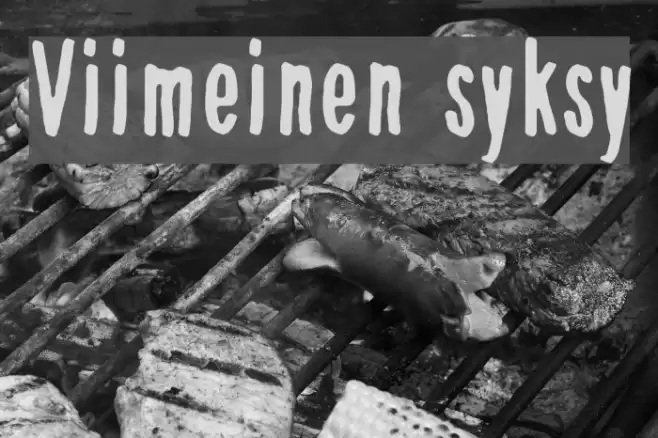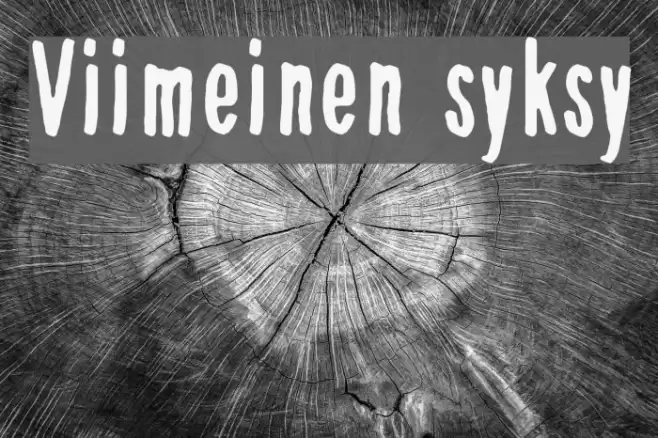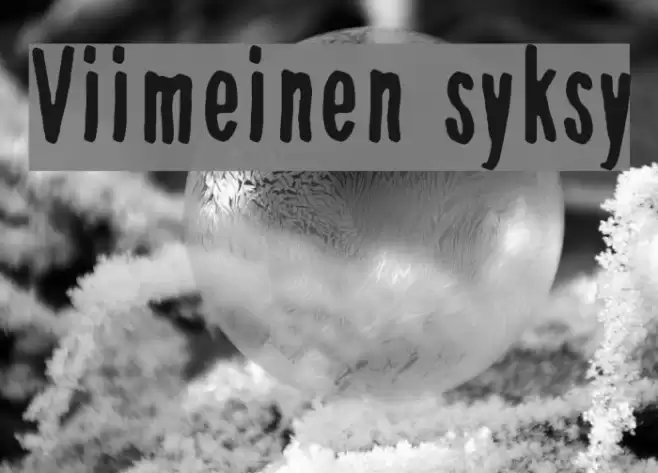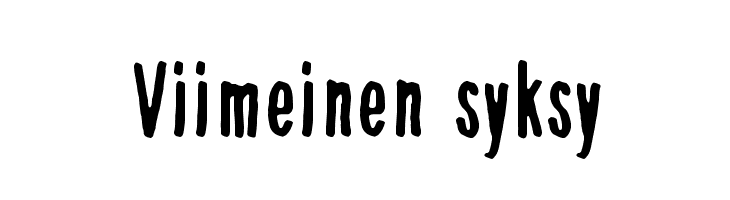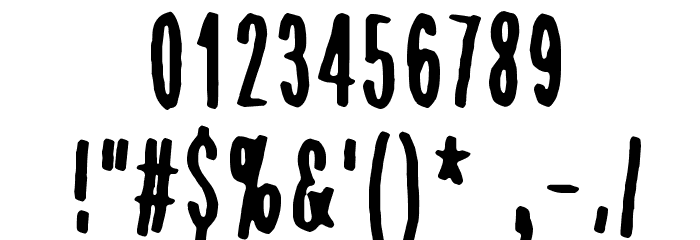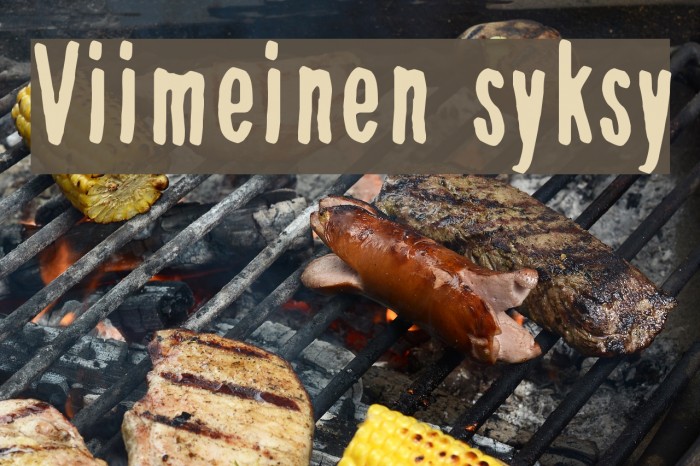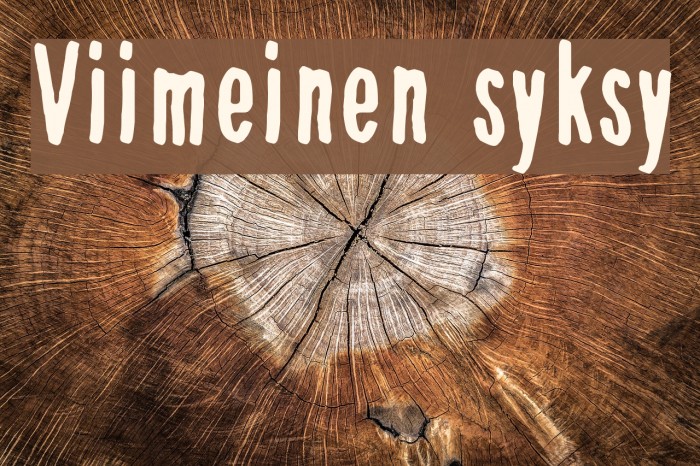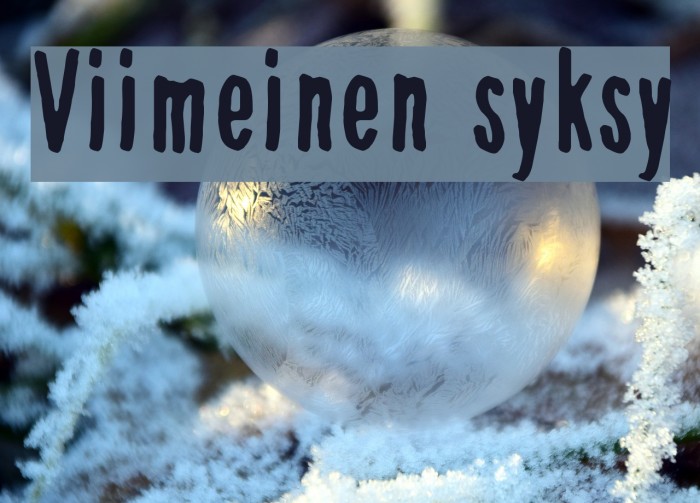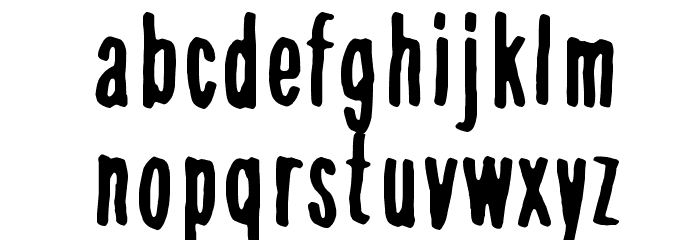
Viimeinen syksy Font
Viimeinen syksy Description
This font features a bold and expressive style with irregular, hand-drawn characteristics. The letters are slightly uneven, giving a playful and artistic feel. The uppercase and lowercase letters maintain a consistent height, while the numbers and special characters complement the overall design. The strokes are thick and varied, adding to the font's dynamic appearance. This font is ideal for projects that require a creative and informal touch, such as posters, artistic branding, or unique packaging designs. Its distinctive style makes it stand out, capturing attention with its bold presence.
A bold, hand-drawn font with an expressive and artistic style from Distorted Eroded fonts.
- Proposed Projects: Ideal for posters, artistic branding, unique packaging designs, and creative projects.
- Overall Style: Artistic, Playful, Hand-drawn